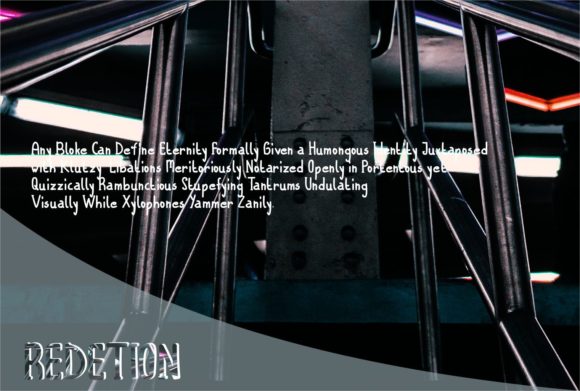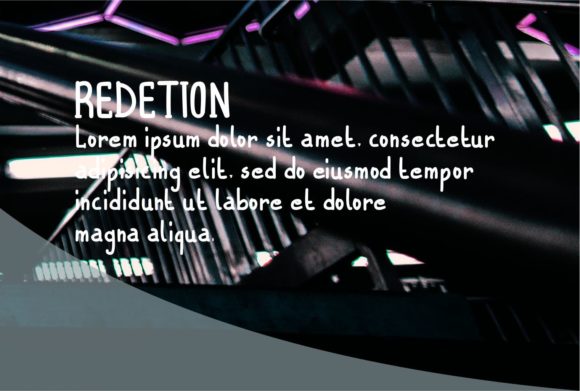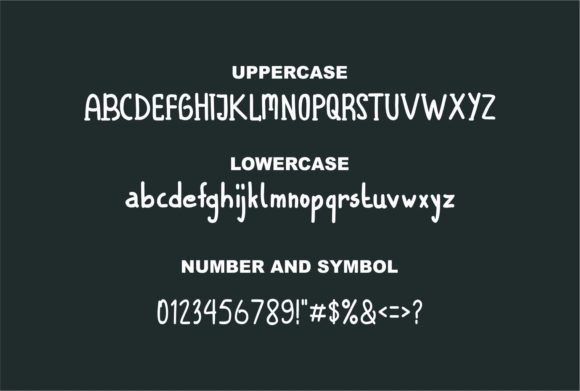
Introduction to Rediton Font
You’ve spent hours staring at your screen, trying to come up with the perfect design for your creative project. The words aren’t flowing, and your ideas are stuck. But then, like a breath of fresh air, you stumble upon the perfect font. Introducing the Rediton Font, a simple yet sharp display font that will inspire your works and take your designs to the next level.
This high-quality design resource is not only free to download but also offers a transparent background, making it perfect for any creative project. Whether you’re a seasoned designer or just starting out, the Rediton Font is a valuable addition to your toolkit. Its clean and modern look will elevate your designs and give them a professional touch.
Get ready to unleash your creativity with the Rediton Font and discover its endless possibilities.
Key Features of Rediton Font
- Includes a wide range of characters, including uppercase and lowercase letters, numbers, and punctuation marks.
- Features a unique, modern design that is ideal for use in digital and print media, including logos, graphics, and typography.
- Supports multiple languages, making it a versatile design resource for global creative projects.
- Available in a single font size, with no bold or italic variations, but can be easily scaled up or down to suit the needs of your design.
Honest Review: Rediton Font
I recently had the chance to work with the Rediton Font for a creative project, and I was impressed with its overall quality and versatility. The font is available for free download, making it an excellent addition to any designer’s toolkit.
Here are some of the things that worked well for me:
- ✨ Clean and modern aesthetic: The Rediton Font has a sleek, modern look that’s perfect for a variety of design projects.
- ✨ High-quality glyphs: The font includes a wide range of glyphs, including Latin, Cyrillic, and Greek characters.
- ⚠️ Limited font weights: The Rediton Font only includes a few font weights, which can make it difficult to achieve the desired level of contrast and emphasis.
- ⚠️ No italic or bold styles: Unfortunately, the font does not include italic or bold styles, which can limit its usability in certain design situations.
Overall, I’m impressed with the Rediton Font as a design resource. While it has some limitations, its clean aesthetic and high-quality glyphs make it a great choice for a variety of creative projects.
Experiment with different font sizes, colors, and combinations to achieve the desired effect. Use the font in conjunction with other design elements to create a visually appealing design.
The Rediton Font is ideal for various creative projects, including logos, social media graphics, presentations, reports, and documents. Its high quality and transparent background make it perfect for designs that require a clean and modern look.